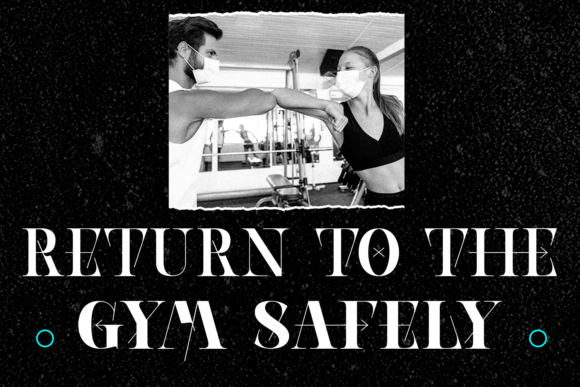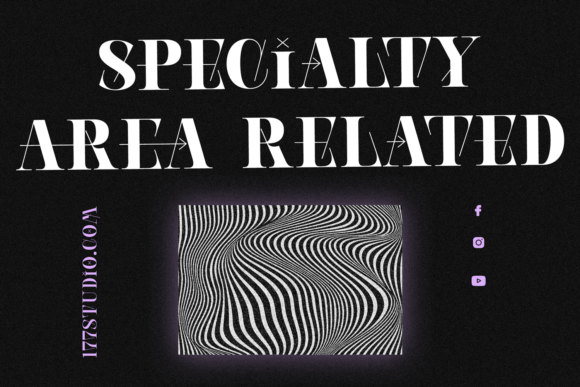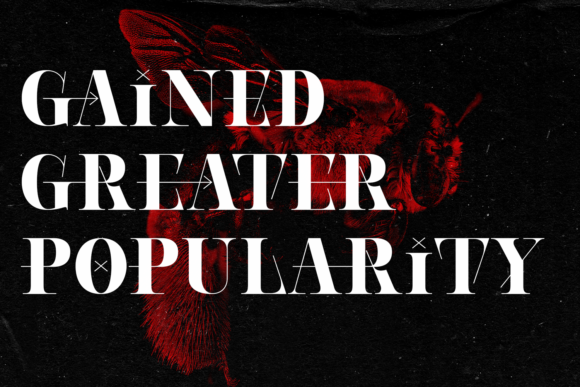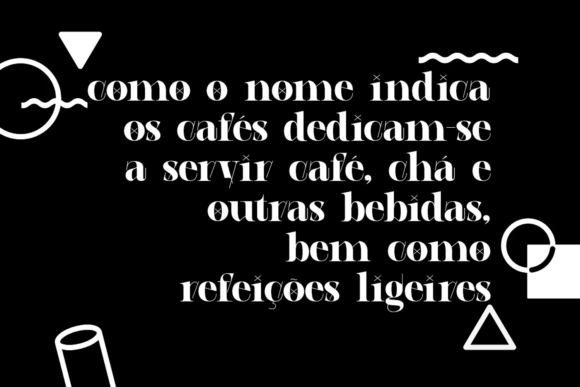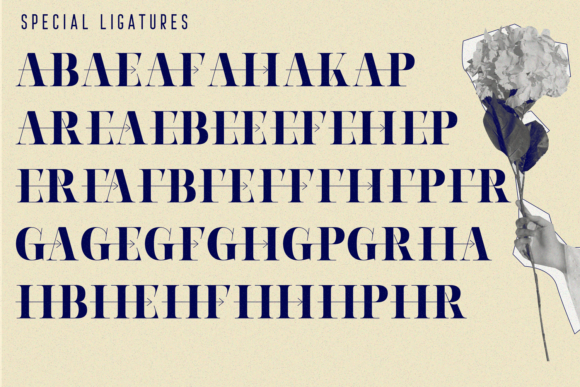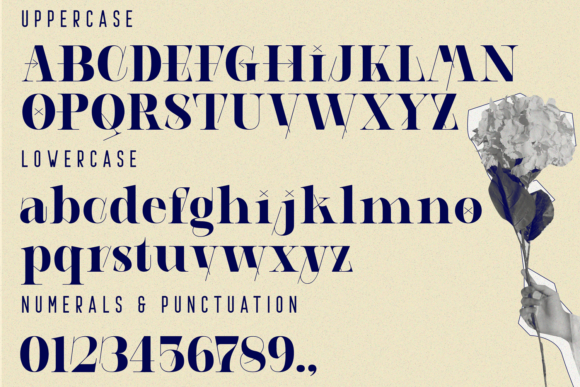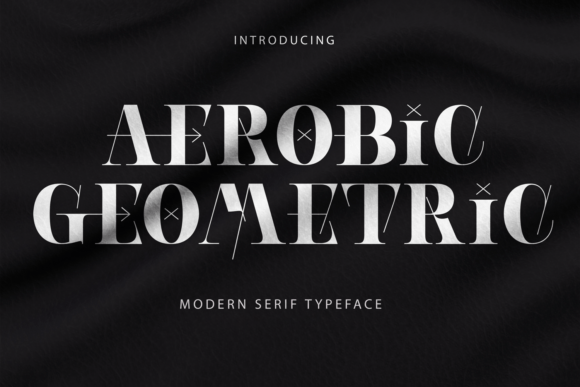
Aerobic Geometric Font: Elevate Your Designs with Modern Elegance
In the world of typography, fonts play a crucial role in conveying the tone and personality of a design. For designers and crafters seeking a modern and elegant serif font, Aerobic Geometric is an excellent choice. This assertive font is designed to make a statement, offering a versatile style that can be used to create spectacular designs. In this article, we’ll explore the features and benefits of Aerobic Geometric, and why it’s a must-have for any design enthusiast.
What is Aerobic Geometric Font?
Aerobic Geometric is a modern serif font that exudes elegance and sophistication. Its geometric design ensures a clean and precise look, making it perfect for a wide range of design applications. Whether you’re working on a branding project, creating social media graphics, or designing a website, Aerobic Geometric is an excellent choice.
One of the standout features of Aerobic Geometric is its PUA (Private Use Area) encoding. This means that you can access all the glyphs and swashes with ease, giving you greater flexibility and creative control over your designs. With PUA encoding, you can effortlessly navigate the font’s extensive character set, including alternative letters, ligatures, and decorative elements.
Key Features of Aerobic Geometric Font
- Assertive and modern design: Aerobic Geometric boasts a bold and contemporary look that’s sure to grab attention.
- Elegant serif style: The font’s serif design adds a touch of sophistication and refinement to any design.
- PUA encoded: Easy access to glyphs, swashes, and other special characters.
- Versatile: Suitable for a wide range of design applications, from branding and advertising to digital media and crafting.
Aerobic Geometric offers numerous benefits for designers and crafters, including:
- Time-saving: With its extensive character set and PUA encoding, you can quickly find the perfect glyph or swash to enhance your design.
- Increased creativity: The font’s versatility and range of special characters inspire creativity and experimentation.
- Professional results: Achieve high-quality, professional-looking designs with ease, thanks to the font’s elegant and modern design.
Use Cases for Aerobic Geometric Font
Aerobic Geometric is an incredibly versatile font that can be used in a variety of design applications, including:
- Branding and logos: Create a lasting impression with a bold and elegant logo that showcases your brand’s personality.
- Social media graphics: Elevate your social media presence with eye-catching graphics that feature Aerobic Geometric’s modern and assertive style.
- Web design: Enhance your website’s typography with a clean, precise, and elegant font that’s perfect for headers, titles, and more.
- Crafting and DIY projects: Add a touch of sophistication to your crafting and DIY projects, such as papercrafting, scrapbooking, and card making.
Aerobic Geometric is an exceptional font that offers a unique blend of modern elegance and versatility. Its PUA encoding and extensive character set make it an excellent choice for designers and crafters seeking a high-quality serif font. Whether you’re working on a professional design project or a personal crafting endeavor, Aerobic Geometric is sure to elevate your designs and inspire creativity.